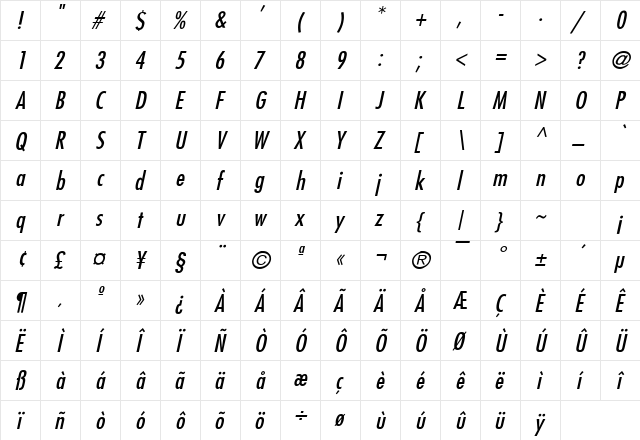
Fuji Italic
Design Context for Fuji Typeface
Fuji is a composed and adaptable typeface that performs quietly and consistently across a wide range of design contexts. Its italic angle brings a sense of urgency and motion to the letterforms.
Pro Tip: Use Fuji for emphasis, pull quotes, and subheadings where its slanted energy can add rhythm to the layout.